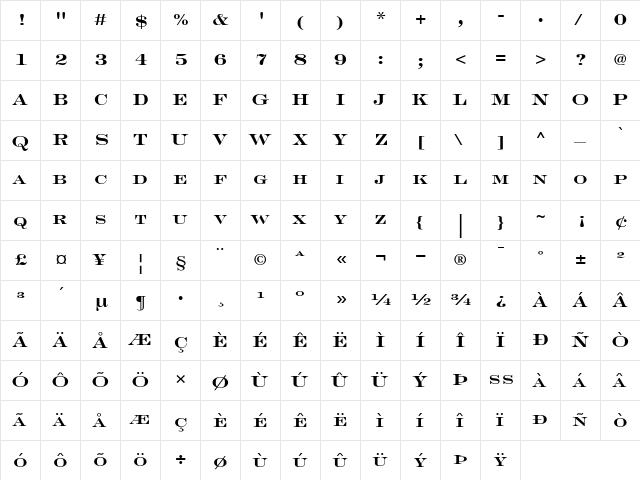
EngraversLHFace Bold Font Preview
EngraversLHFace Bold
EngraversLHFace Bold Font Details
Design Context for EngraversLHFace Typeface
EngraversLHFace is a composed and adaptable typeface that performs quietly and consistently across a wide range of design contexts. Its bold stroke weight gives it real presence on the page.
Pro Tip: Pair EngraversLHFace with a font of contrasting weight or personality to build a more expressive typographic hierarchy.